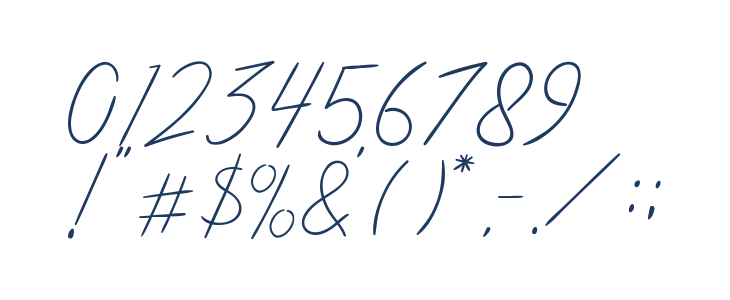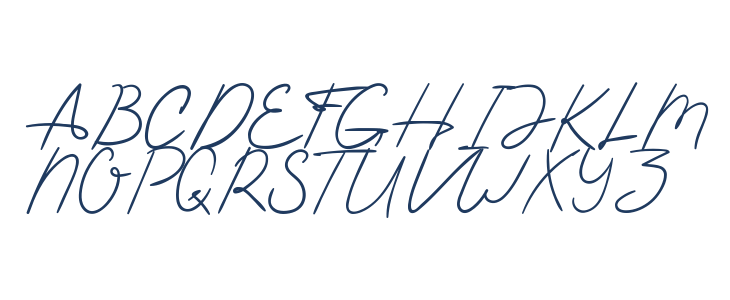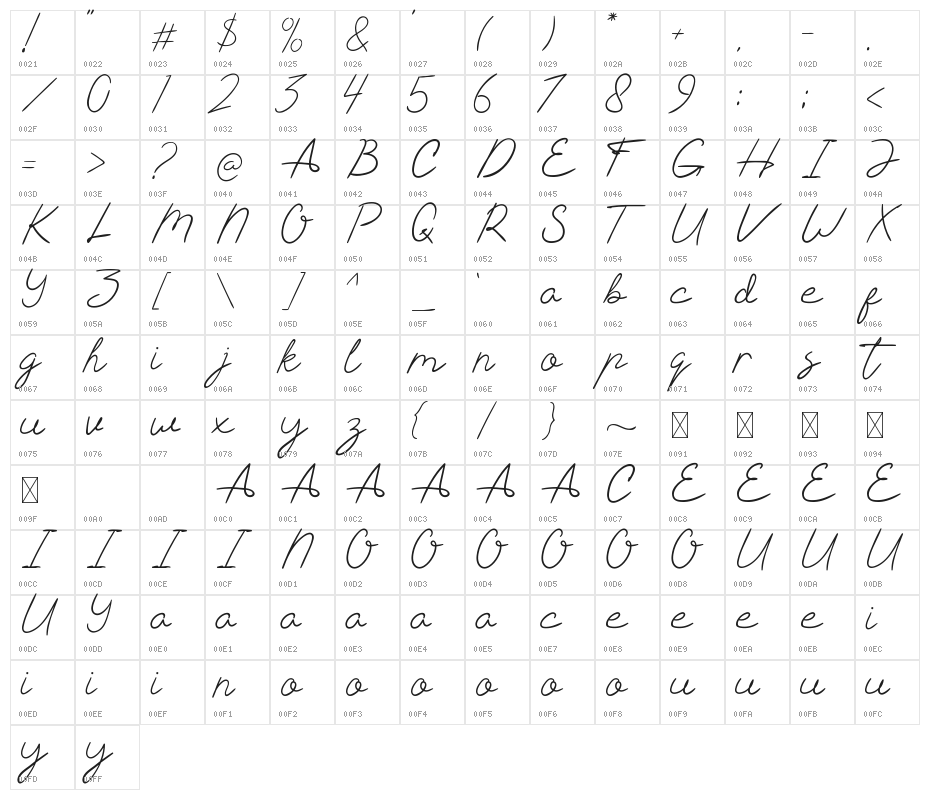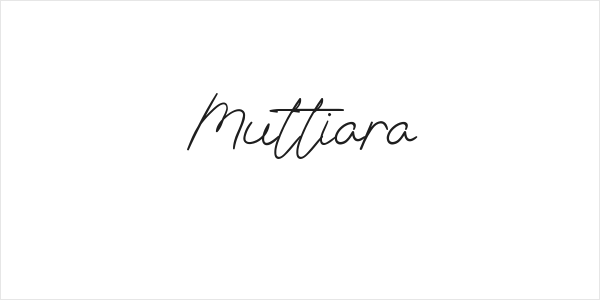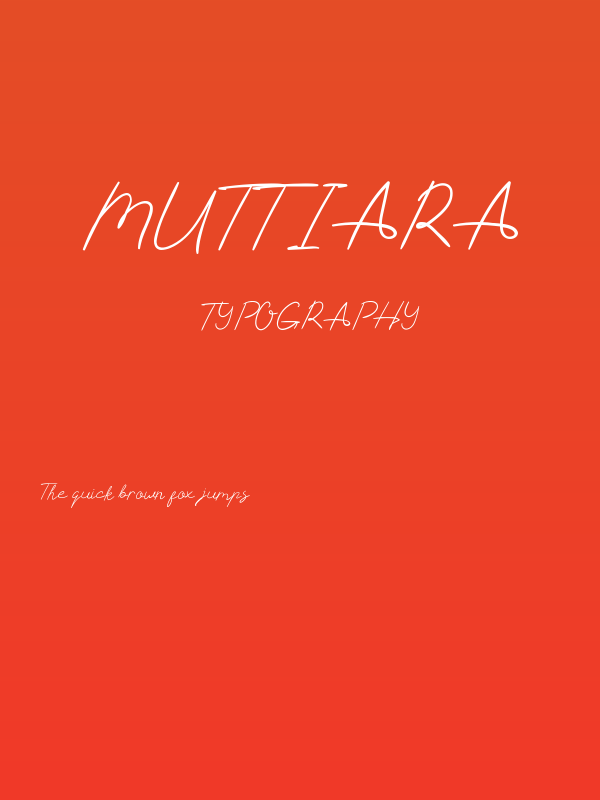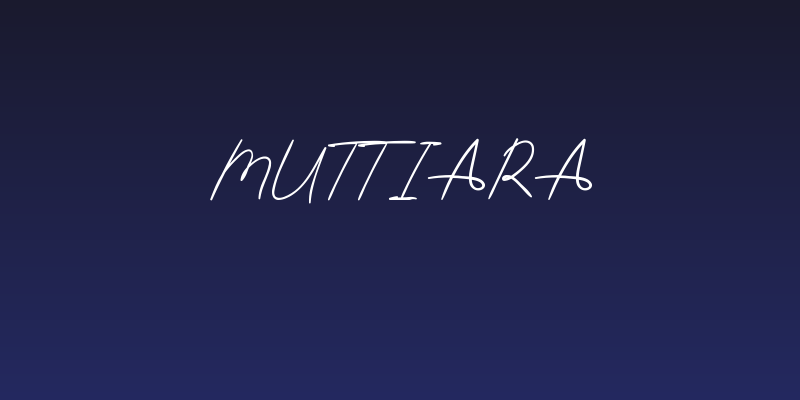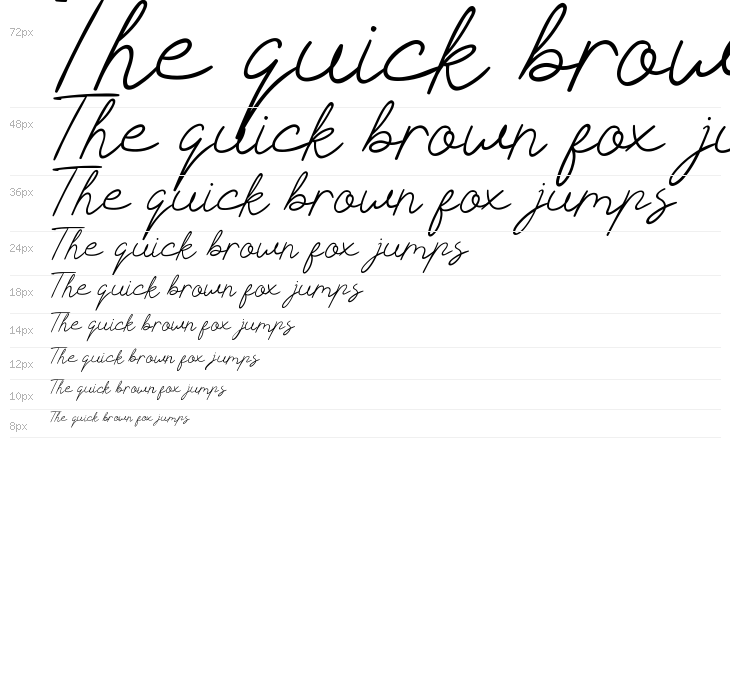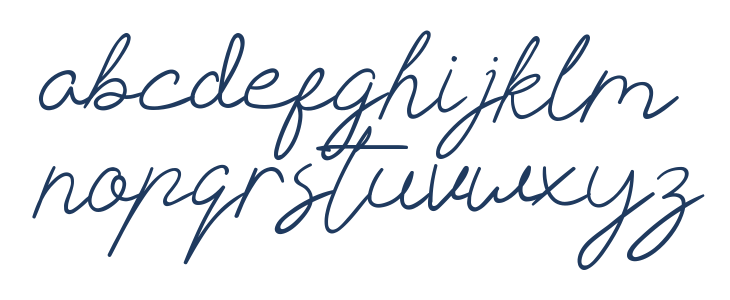
Muttiara Font
Muttiara Description
A handwritten script font with fluid, connected strokes and a natural, casual appearance. The characters are slightly slanted, with consistent thin lines and open, airy spacing. Both uppercase and lowercase letters have a smooth, continuous flow, mimicking natural handwriting.
| Overall Style | Casual, Elegant, Handwritten |
| Use Case | Logos, Invitations, Greeting cards, Social media posts |
| Proposed Projects | Greeting cards, personal branding, invitations, quotes, social media graphics. |